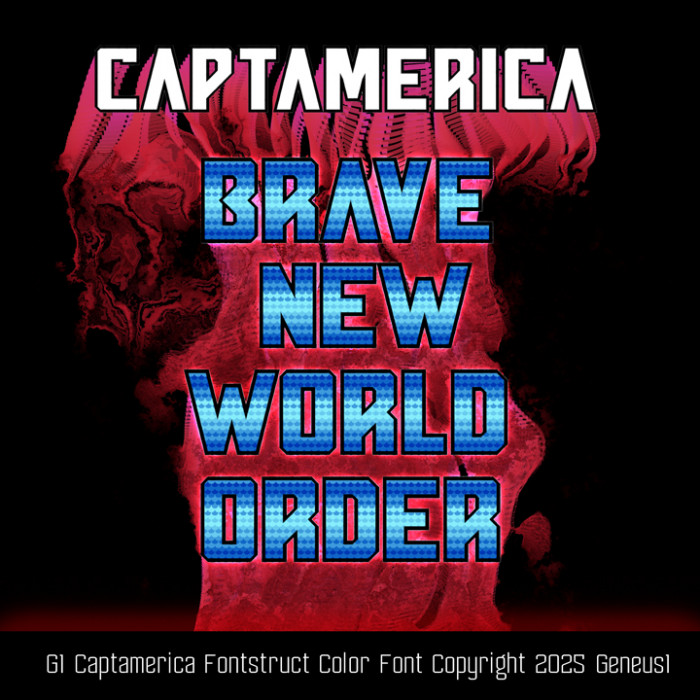
• Opening day of Marvel's Captain America: New World Order movie!
It's been so long since I've worked on a fontstruction, I forgot how to stack composite bricks. It's like going back to the gym after a long break and I can't do any heavy lifting and I'll be sore from it tomorrow.
This design is very retro Cap. The fill is a throwback to the original Captain America's comic book chain mail suit material.
@geneus1 - Welcome back, and with yet another wonderful Marvel logo font!  The color patterns here are amazing.  :^)
What a beautiful pattern (and glyphs, of course)! I wish Marvel would make more films so we could see more of your fonts here, dear Master!